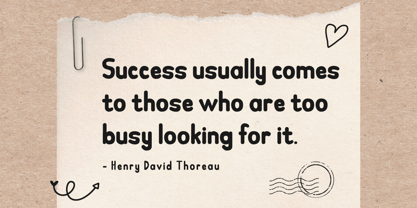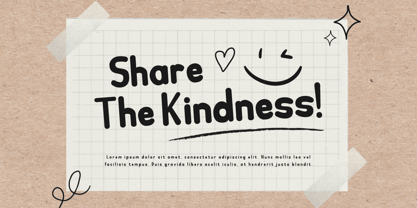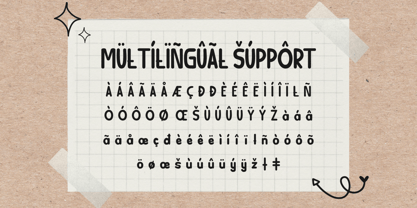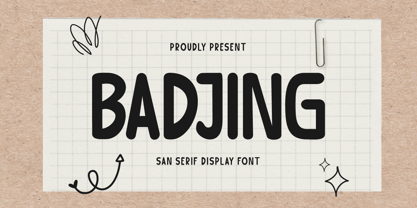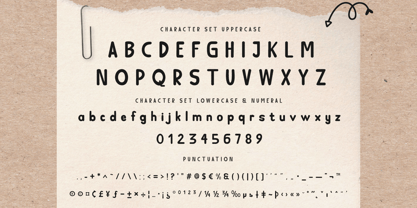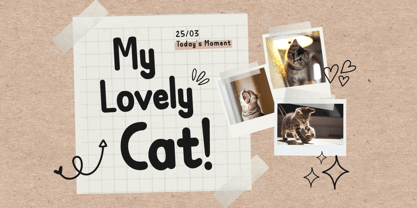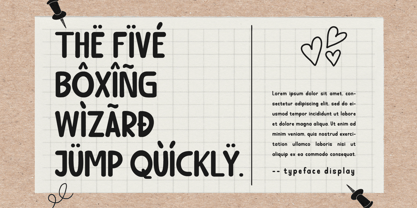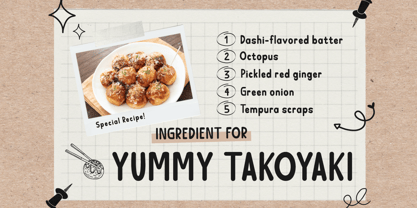
Badjing
by Trabas Kriya
The Badjing Font Family was designed by Murozakul Akhsan and published by Trabas Kriya. Badjing contains 1 styles. More about this family
Badjing is a handwritten font that brings a personal touch to your designs. Its natural, flowing characters mimic the beauty of human handwriting, making it ideal for invitations, greeting cards, and any design where you want to add a personal touch.
- All glyphs and Feature
- Fonts include Multilingual: Support for 85 languages.
Afrikaans, Albanian, Asu, Basque, Bemba, Bena, Breton, Catalan, Chiga, Cornish, Croatian, Czech, Danish, Dutch, Embu, English, Esperanto, Estonian, Filipino, Finnish, French, Friulian, Galician, Gusii, Hungarian, Indonesian, Irish, Italian, Kabuverdianu, Kalenjin, Kamba, Kikuyu, Kinyarwanda, Latvian, Lithuanian, Lower, Sorbian, Luo, Luxembourgish, Luyia, Machame, Makhuwa-Meetto, Makonde, Malagasy, Maltese, Manx, Meru, Morisyen, North, Ndebele, Norwegian Bokmål, Norwegian Nynorsk, Nyankole, Oromo, Polish, Portuguese, Quechua, Romanian, Romansh, Rombo, Rundi, Rwa, Samburu, Sango, Sangu, Scottish, Gaelic, Sena, Serbian, Shambala, Shona, Slovak, Slovenian, Soga, Somali, Spanish, Swahili, Swedish, Swiss German, Taita, Teso, Turkish, Upper Sorbian, Uzbek (Latin), Volapük, Vunjo, Walser, Zulu.